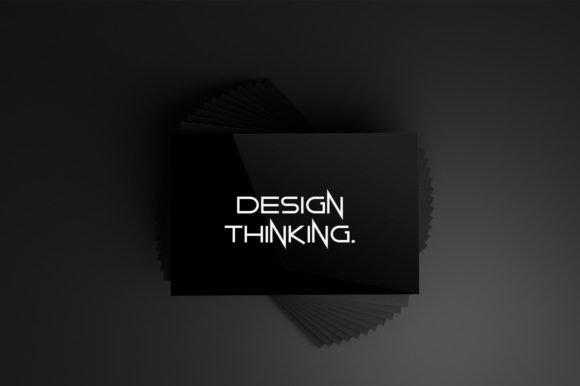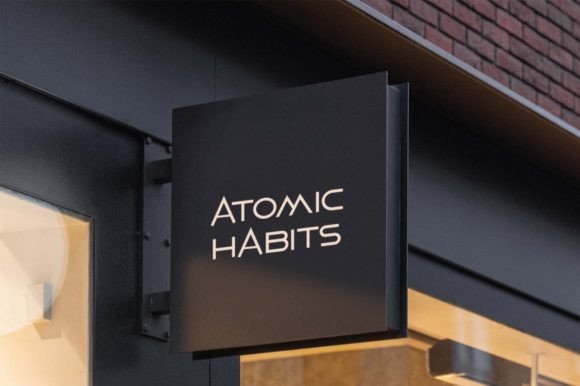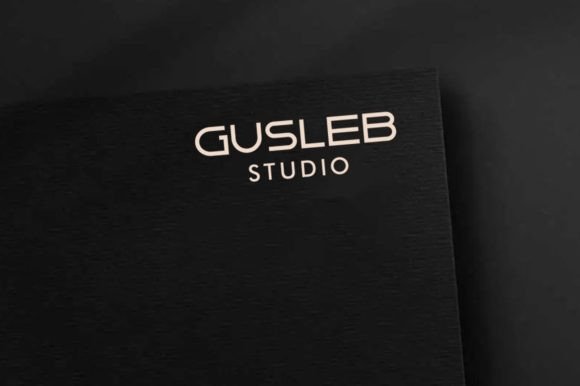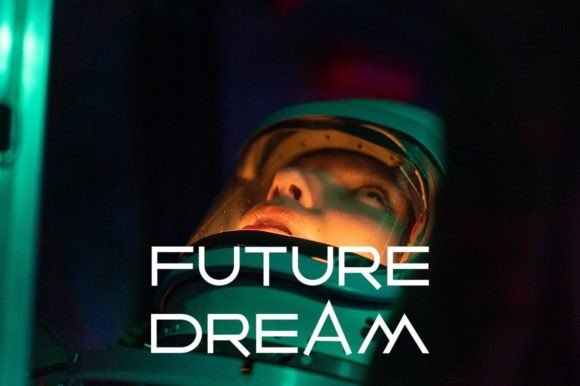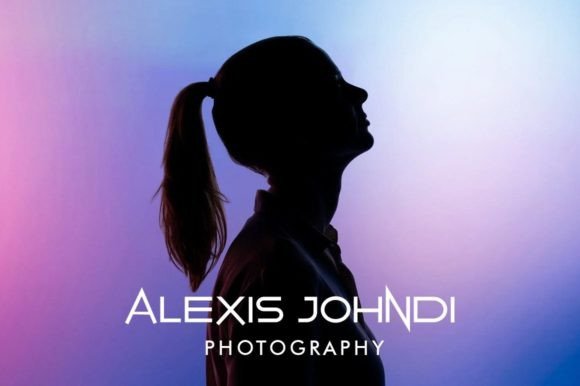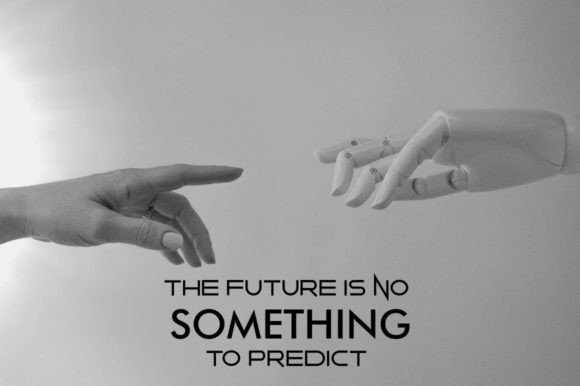
Aline Font: Elevate Your Designs with a Futuristic and Modern Touch
In the realm of typography, fonts play a pivotal role in defining the aesthetic and tone of a design. Among the myriad of fonts available, Aline stands out as a distinctive sans serif font that infuses a futuristic and modern vibe into any design project. Specifically crafted to make a statement, Aline’s unique uppercase characters are perfect for designers and crafters looking to push the boundaries of creativity and innovation in their work.
What Makes Aline Font Special?
Aline is not just another font; it’s a design statement. Its sans serif structure provides a clean and minimalist look, which is versatile enough to be used across various platforms and design projects. However, what truly sets Aline apart is its unique uppercase design. The characters in Aline’s uppercase range are meticulously crafted to convey a sense of futurism and modernity. Each letter is designed to stand out, making it an excellent choice for logotypes, headings, and any design element where you want to capture attention and convey a forward-thinking brand or project image.
Versatility of Use
One of the significant advantages of the Aline font is its versatility. Despite its distinctive look, Aline is surprisingly adaptable and can be used for a wide range of purposes. Whether you’re a graphic designer working on a corporate brand identity, a digital artist creating futuristic artwork, or a crafter designing unique signage, Aline can be an invaluable addition to your typographic arsenal.
For logotypes, Aline’s unique characters offer a fresh and modern take that can help brands stand out in a crowded marketplace. Its clean lines and futuristic aesthetic make it an excellent fit for tech startups, innovative companies, and any business looking to project a forward-thinking image.
Why Choose Aline for Your Designs?
- Unique Aesthetic: Aline offers a distinctive look that can elevate your designs and make them instantly recognizable.
- Versatility: Suitable for a wide range of design projects, from digital graphics to print materials.
- Modern and Futuristic: Perfect for designs that require a contemporary and innovative feel.
- Easy to Read: Despite its unique design, Aline maintains a high level of readability, making it practical for various applications.
Tips for Using Aline Font Effectively
To make the most of Aline’s unique features, consider the following tips:
- Pair with Complementary Fonts: Aline works well with both serif and sans serif fonts. Experiment with pairings to find the perfect balance for your design.
- Experiment with Sizes: Aline’s design looks great in various sizes. Play around with different sizes to achieve the desired impact.
- Consider Color: The futuristic vibe of Aline can be further enhanced with bold and vibrant colors. Choose colors that align with your brand or project’s aesthetic.
Aline font is more than just a typeface; it’s a design tool that can transform your projects with its futuristic and modern appeal. Its unique uppercase characters, combined with a clean sans serif structure, make it an excellent choice for designers and crafters looking to create standout designs. Whether you’re crafting a logotype, designing a website, or working on any project that requires a touch of modernity and innovation, Aline is a versatile and impactful choice. Embrace Aline in your design endeavors and experience the difference it can make in elevating your work to new heights.